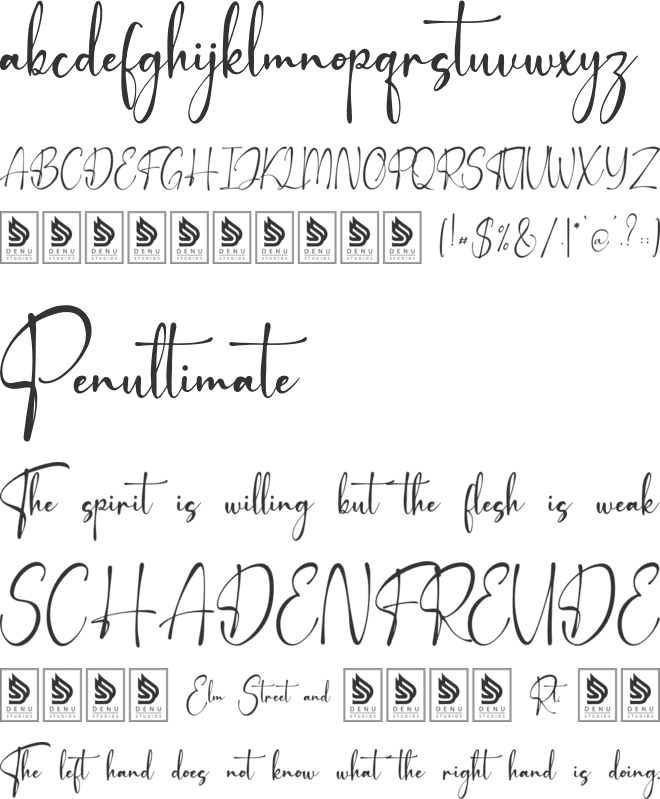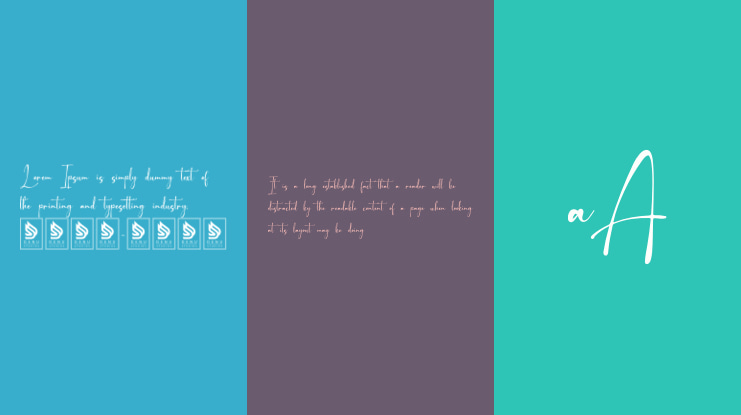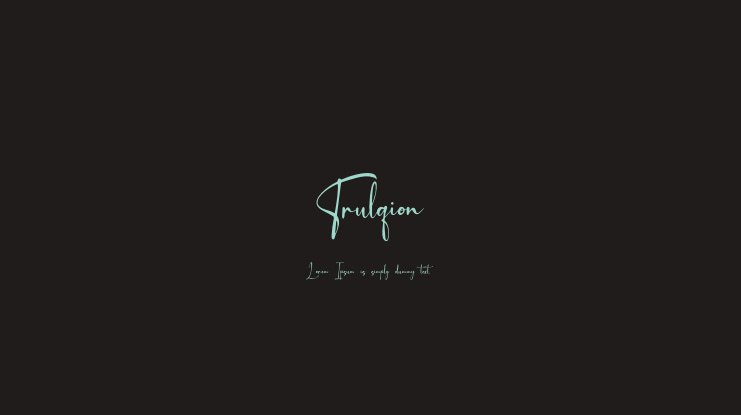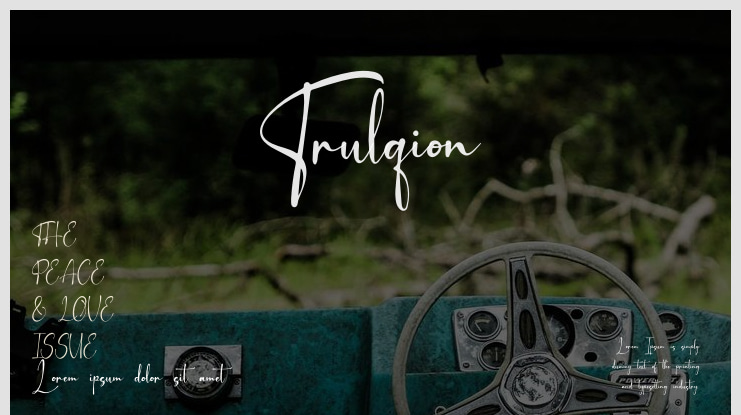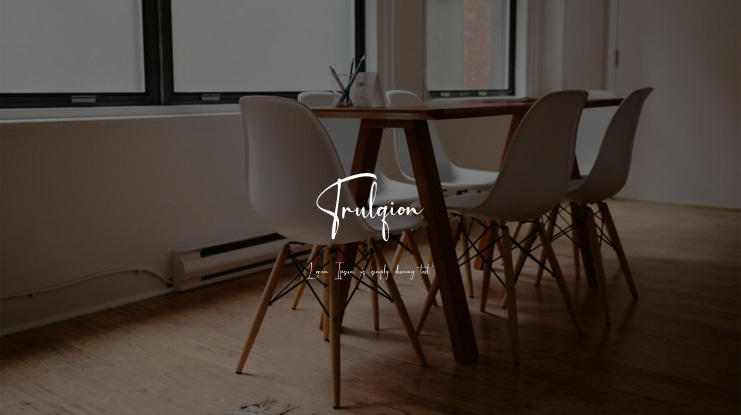
Trulqion | Handwritting Script Font is suitable for any projects such as: logos, branding projects, homeware designs, product packaging, mugs, quotes, posters, shopping bags, t-shirts, book covers, name card, invitation cards, greeting cards, label, photography, watermark, special events, and all your other lovely projects that need a Handwritting script taste.